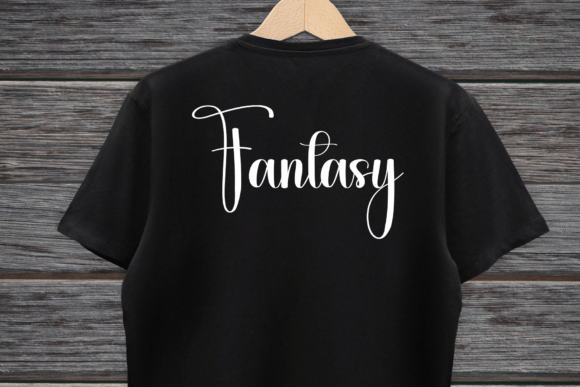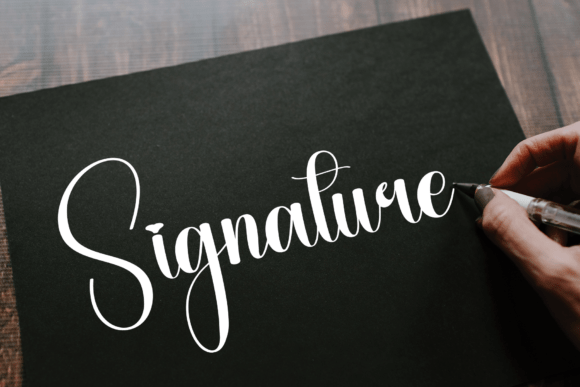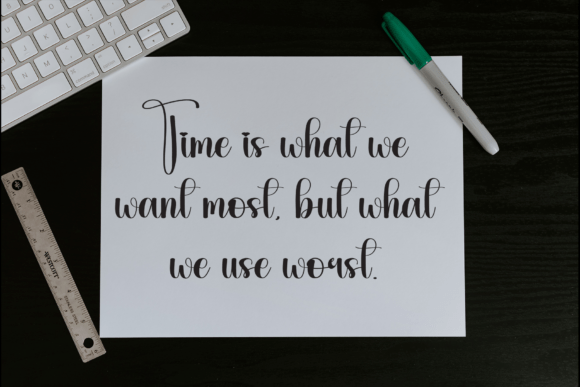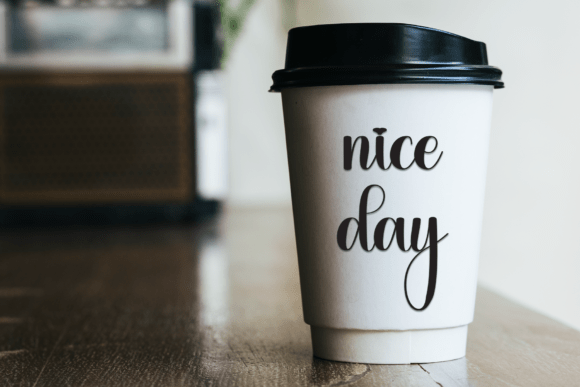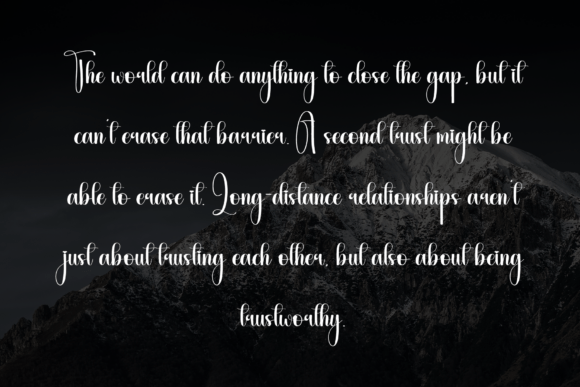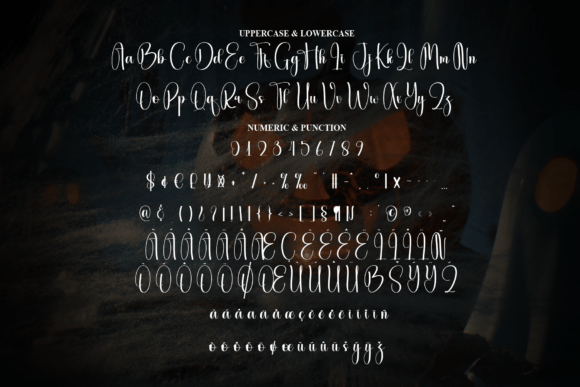
Introduction to Mistery Halloween Font Font
Fonts play a crucial role in design, and the Mistery Halloween Font font is a typeface that brings both character and versatility to any project. Whether you’re working on a branding project, a website, or a print design, the Mistery Halloween Font font offers a unique style that can elevate your work.
Mistery Halloween is a stylish script font that exudes elegance and contemporary charm.
Featuring graceful strokes, fluid curves, and carefully crafted letterforms, it captures the beauty of hand-drawn calligraphy with a modern twist Ideal for logos, invitations, packaging, and social media graphics, it adds a refined and sophisticated touch to any design.
Key Features of Mistery Halloween Font Font
Why Choose Mistery Halloween Font Font?
The Mistery Halloween Font font is more than just a typeface – it’s a design tool that helps you communicate your message with style and clarity. Its unique character set and versatile design make it suitable for a wide range of applications, from elegant invitations to bold headlines.
With its carefully crafted letterforms and balanced proportions, the Mistery Halloween Font font ensures readability and visual appeal across all mediums.
What makes Mistery Halloween Font font special?
The Mistery Halloween Font font stands out with its unique design, exceptional readability, and versatility across various design applications.